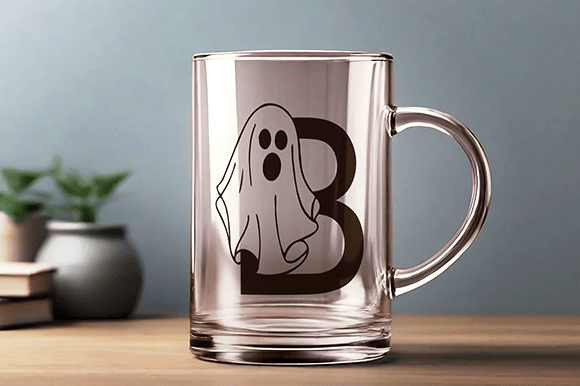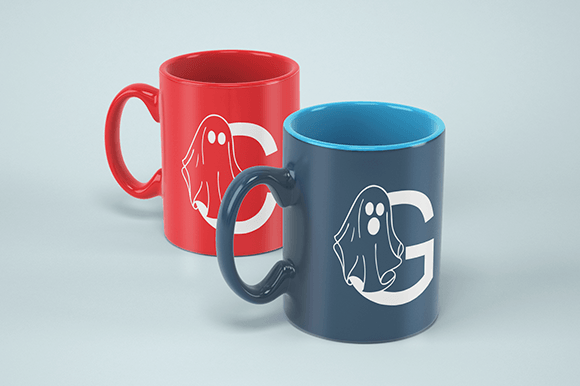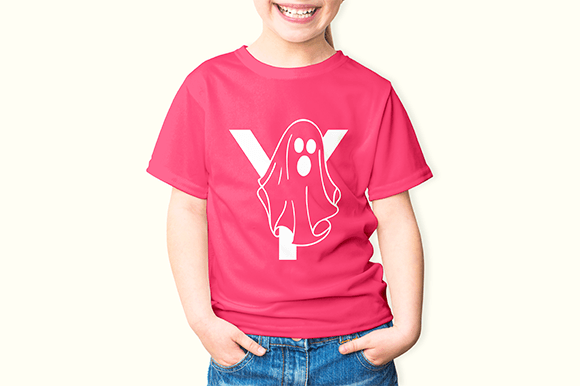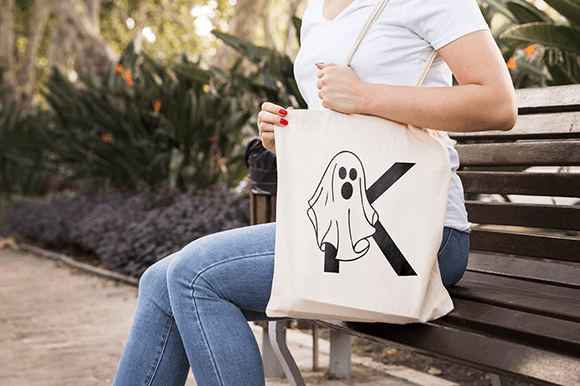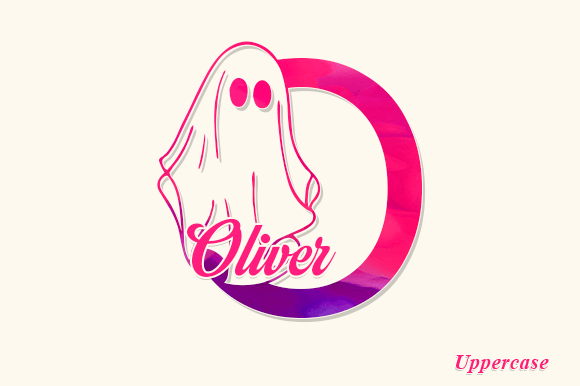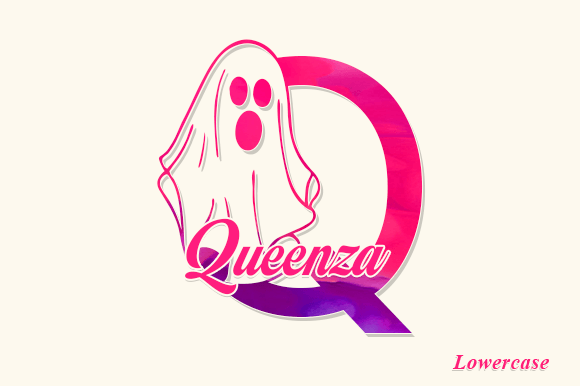
Introduction to Hello Ghost Monogram Font
Introducing Hello Ghost Monogram, a spookily unique and decorative font.
It has a distinctive charm which makes it remarkably special for all your Halloween designs This font in your creations will surely help them make a distinctive statement.
Key Features of Hello Ghost Monogram Font
Why Choose Hello Ghost Monogram Font?
Hello Ghost Monogram Font offers exceptional quality and versatility, making it a valuable addition to your design toolkit. Whether you’re creating for personal projects or commercial use, Hello Ghost Monogram Font delivers professional results.